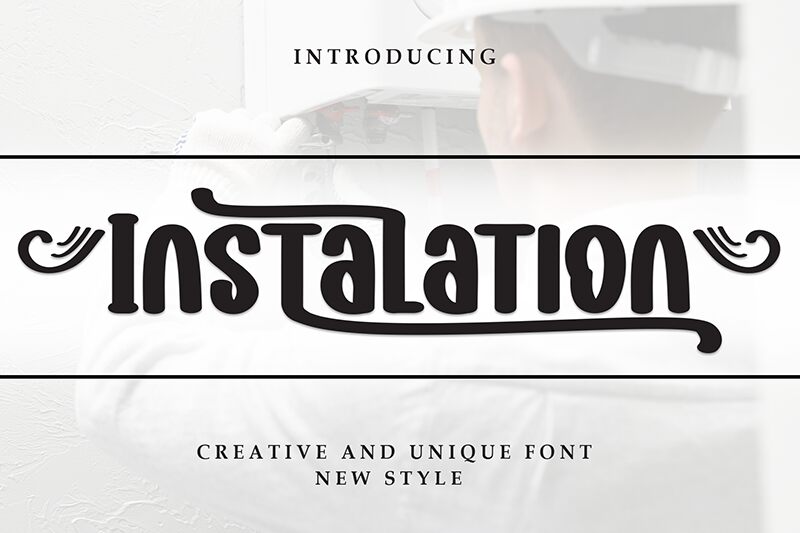
Instalation
Instalation font by Andi Moz is a brush typeface characterized by its rounded, groovy, and retro-inspired style. It showcases distinctive curves and a quirky presence that easily captures the viewer’s attention. The dynamic and youthful approach allows it to be used across several creative projects.
Whether it’d for name tags, invitation cards, signage design, poster design, flyers or headlines, Instalation can do it all. Also think of branding/packaging projects such as book covers or t-shirt prints. Whereas digital uses cover websites/blogs and apps/social media posts among others!